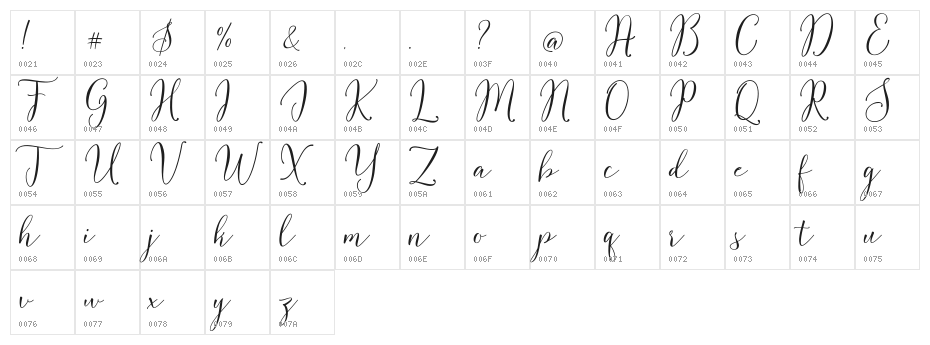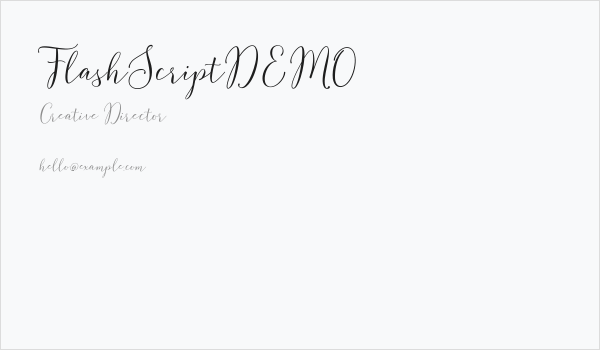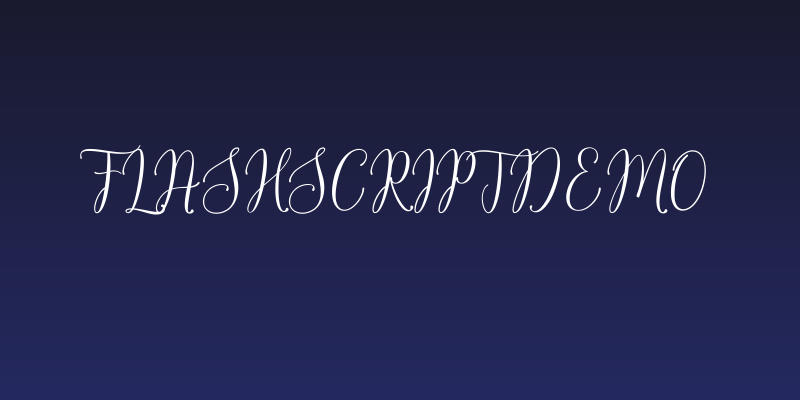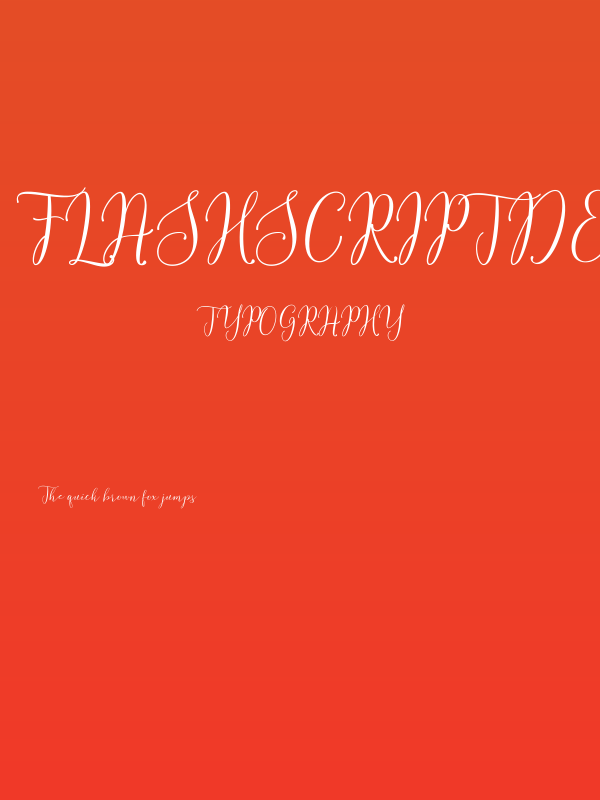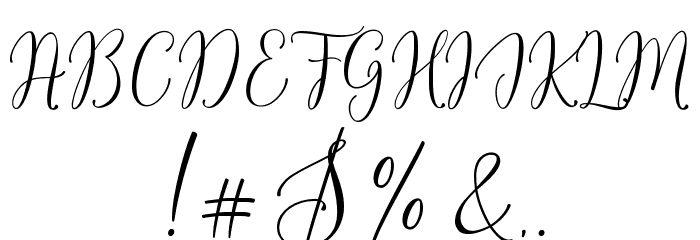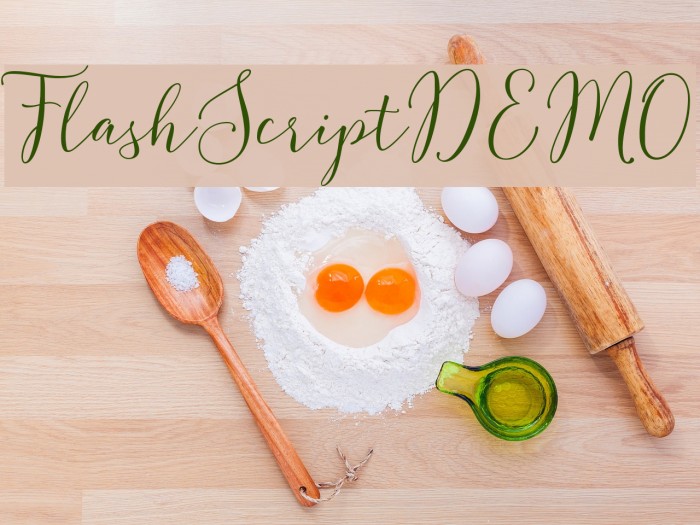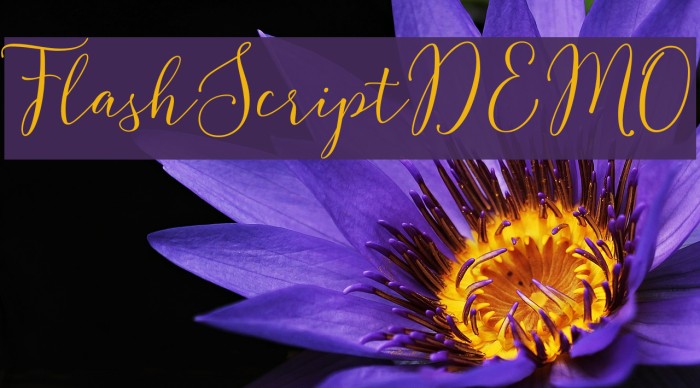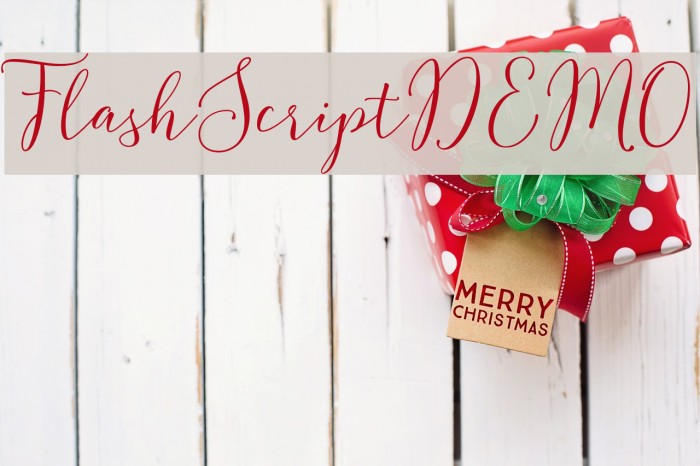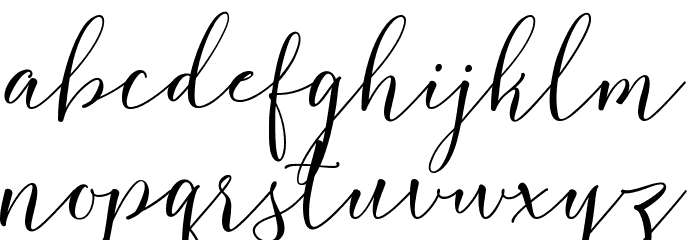
FlashScriptDEMO Font
FlashScriptDEMO Description
This font exudes elegance and fluidity, characterized by its cursive script style. The letters are interconnected with smooth, flowing strokes that mimic the natural motion of handwriting. The uppercase letters are tall and graceful, while the lowercase letters maintain a consistent rhythm with slightly exaggerated loops and swashes. The numerals and special characters are designed to complement the overall script style, adding a touch of sophistication. This font is perfect for projects that require a personal, handwritten touch, such as invitations, greeting cards, and branding materials.
| Proposed Projects | Ideal for wedding invitations, personal branding, greeting cards, and elegant stationery. |